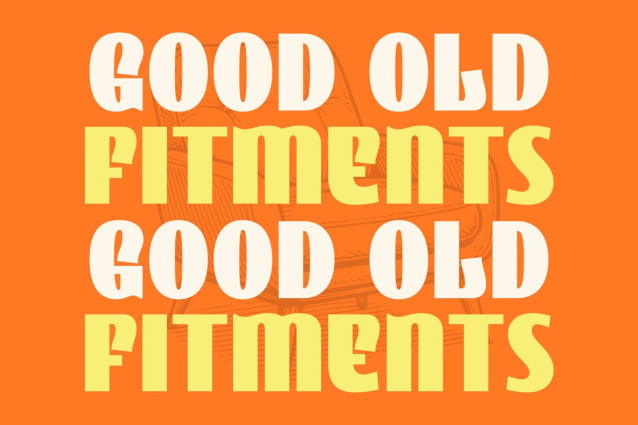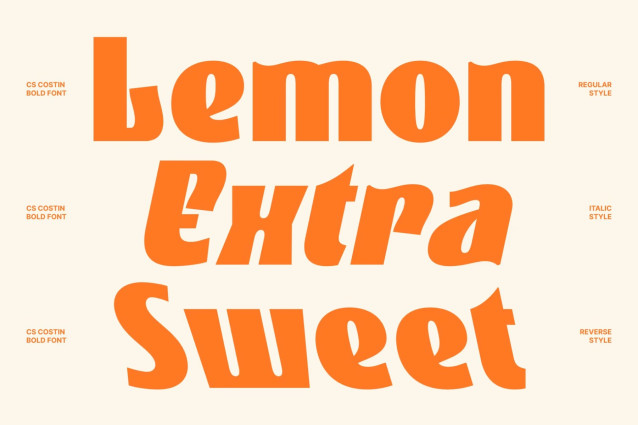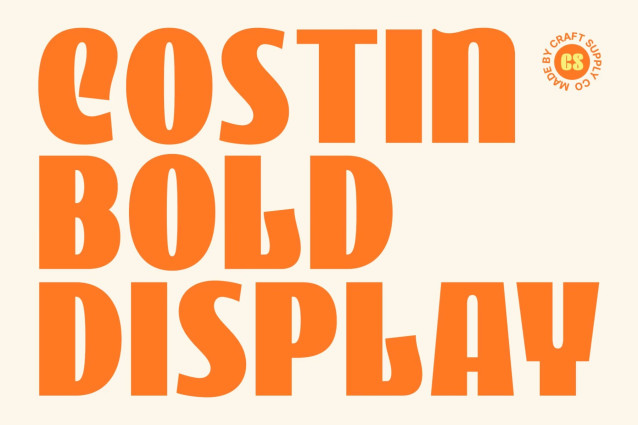
CS Costin – Bold Sans Serif Font
CS Costin – Bold Sans Serif Font: Where Bold Impact Meets Playful Expression
Strong Forms with Eye-Catching Presence
This is a bold sans serif display font designed to deliver maximum visual impact through its powerful letterforms and confident structure. Its bold construction ensures excellent visibility and readability, making it ideal for designs that need to stand out and capture attention instantly. The clean sans serif foundation gives the font a modern and versatile appearance suitable for a wide range of creative applications.
Playful Details with Dynamic Personality
This font incorporates playful design elements that add charm, energy, and individuality. These subtle expressive touches soften its bold appearance, creating a friendly and engaging personality that feels both contemporary and approachable.
Modern Versatility with Creative Appeal
This font delivers a typographic identity that feels fresh, energetic, and highly adaptable. Its balance of clarity and personality allows it to perform equally well in professional branding and more expressive creative projects, offering designers a versatile tool for impactful communication.